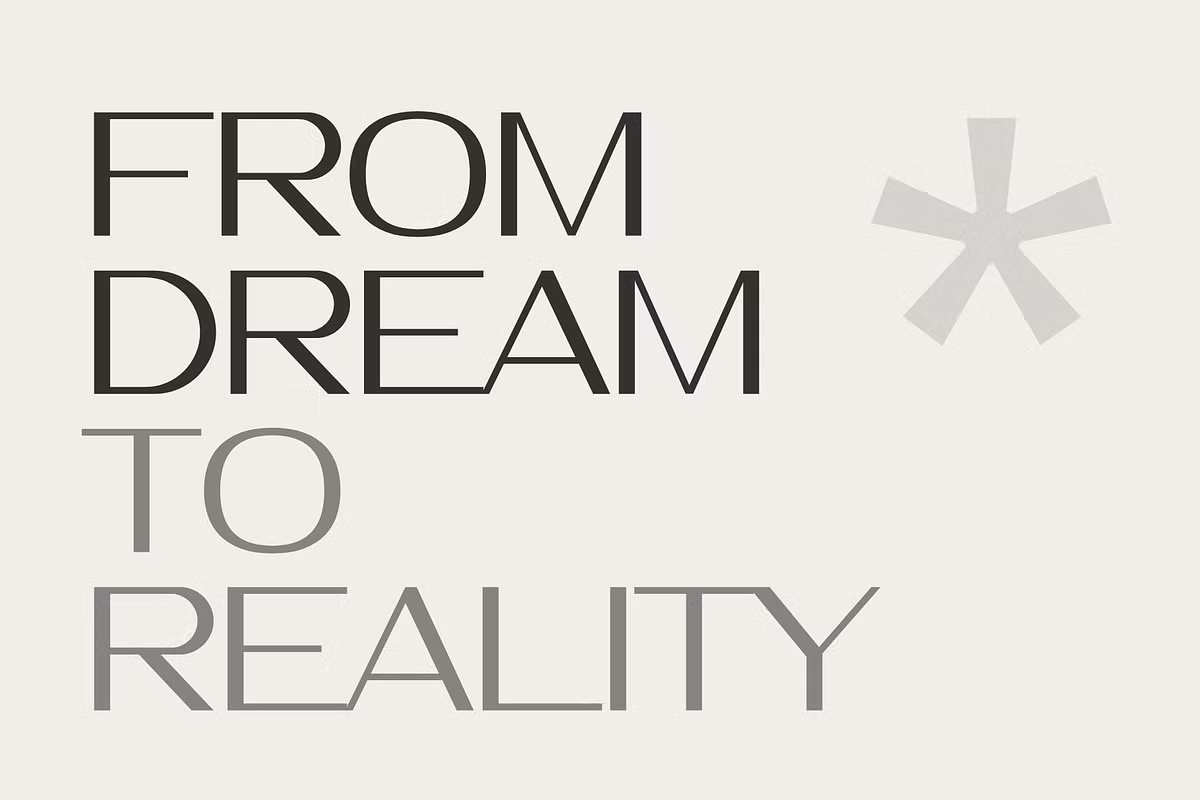
Modamode Font
Modamode is a sophisticated sans-serif font that merges contemporary architectural principles with high-fashion aesthetics. Its modern design exudes elegance through minimalist precision, making it a perfect choice for those seeking a sleek, refined look.
Ideal for architecture firms, fashion brands, upscale editorials, and high-end branding projects, Modamode’s precise geometric composition and delicate details strike a balance between style and functionality. This contemporary typeface enhances projects with a sense of exclusivity, making it perfect for striking logos, elegant magazine layouts, and distinctive brand identities.